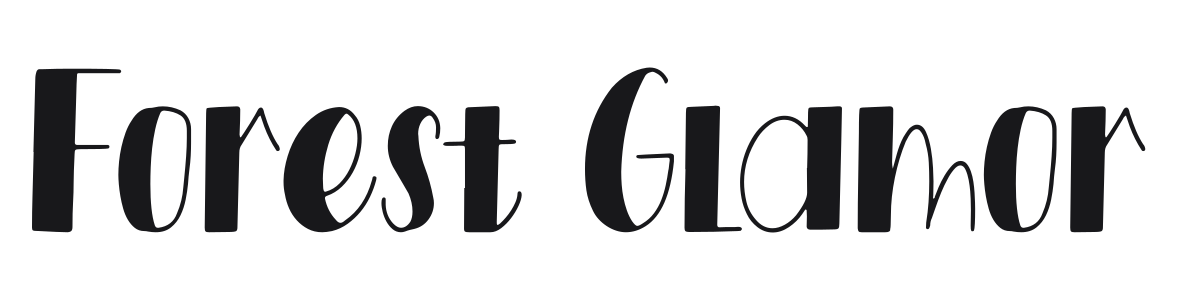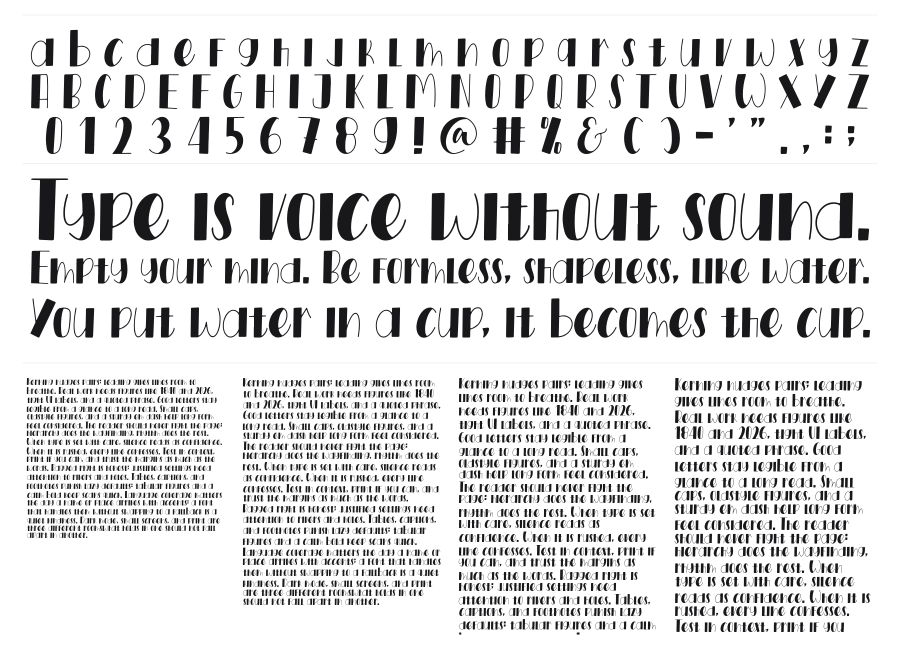
Forest Glamor
Forest Glamor is a tall condensed display face that mixes dramatic stroke contrast with a playful, almost handmade rhythm. Some characters are wide and circular, others razor-thin, creating a lively tension across a line of text. It carries a vintage glamour energy that works well for boutique branding, editorial headlines, and packaging where personality matters.